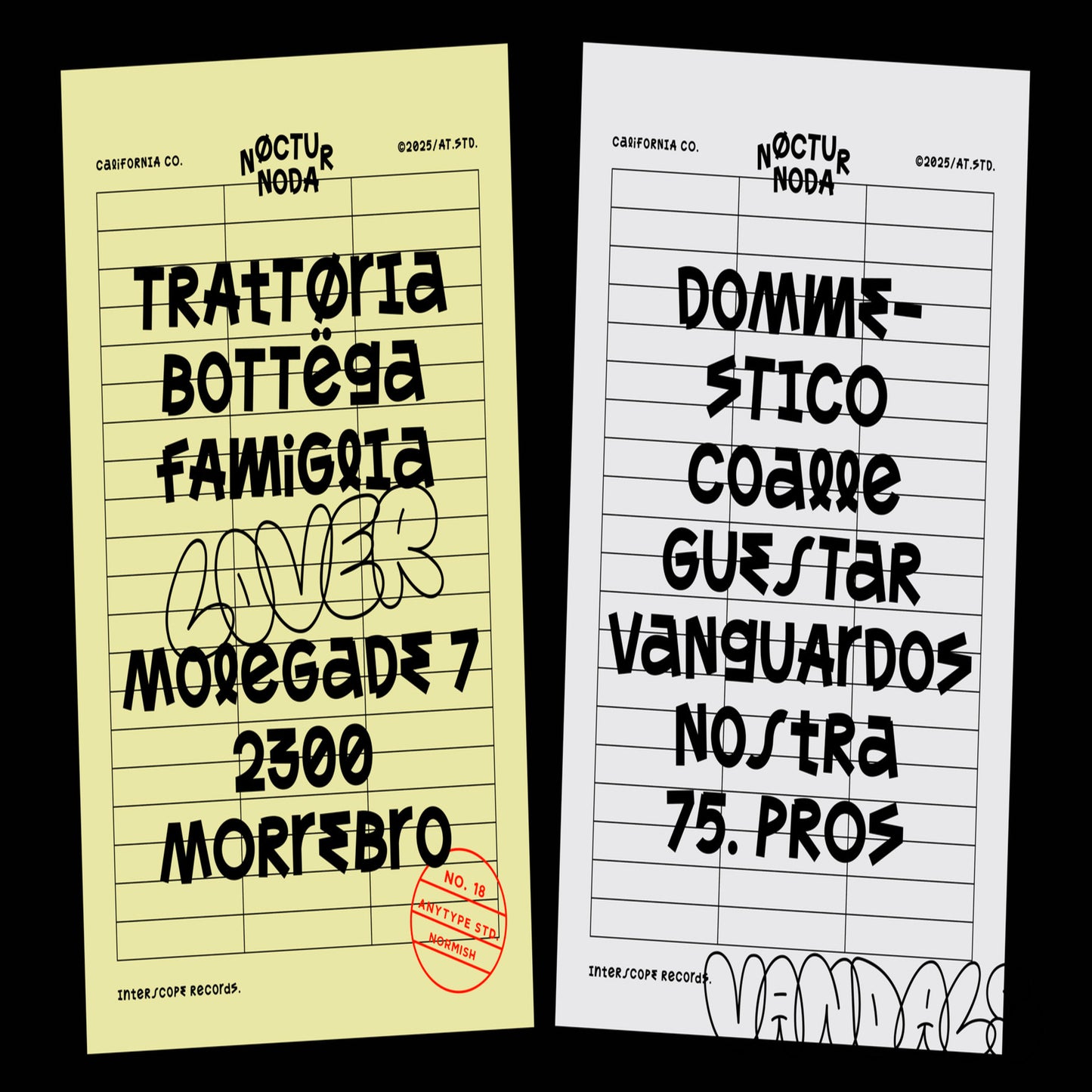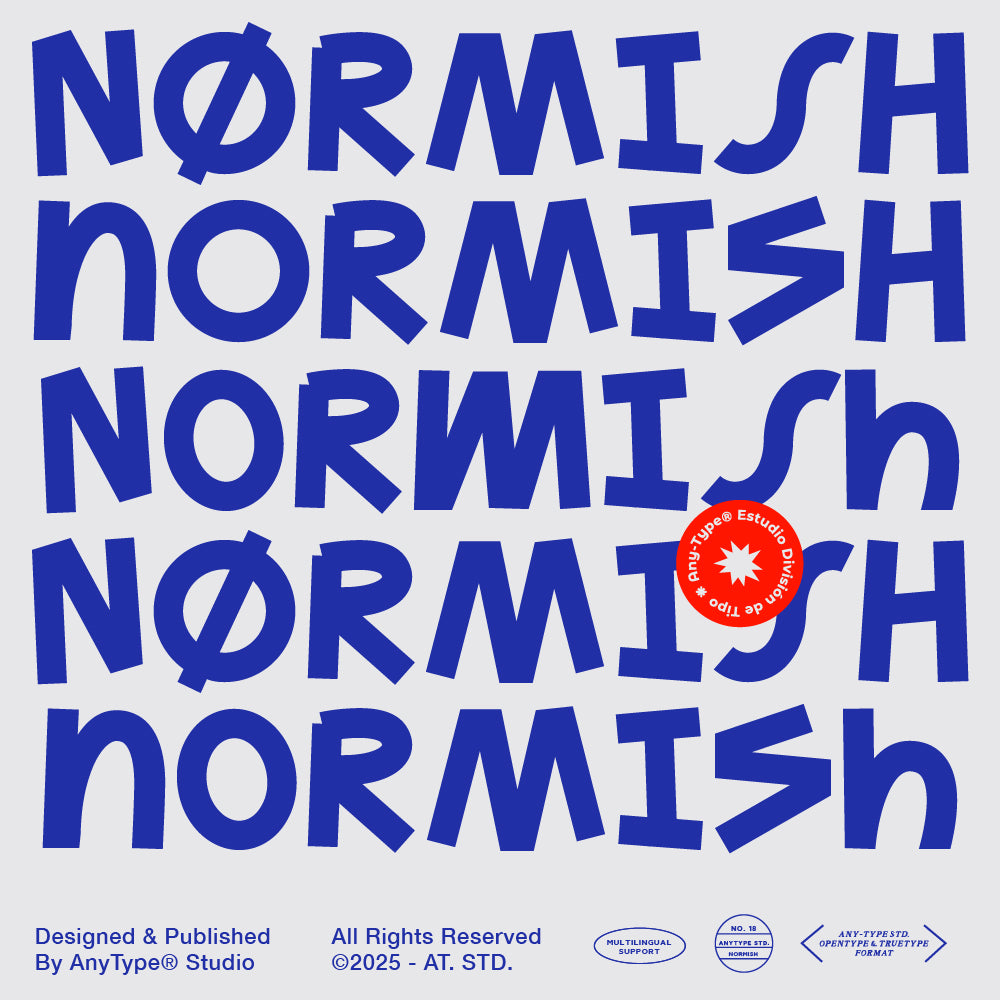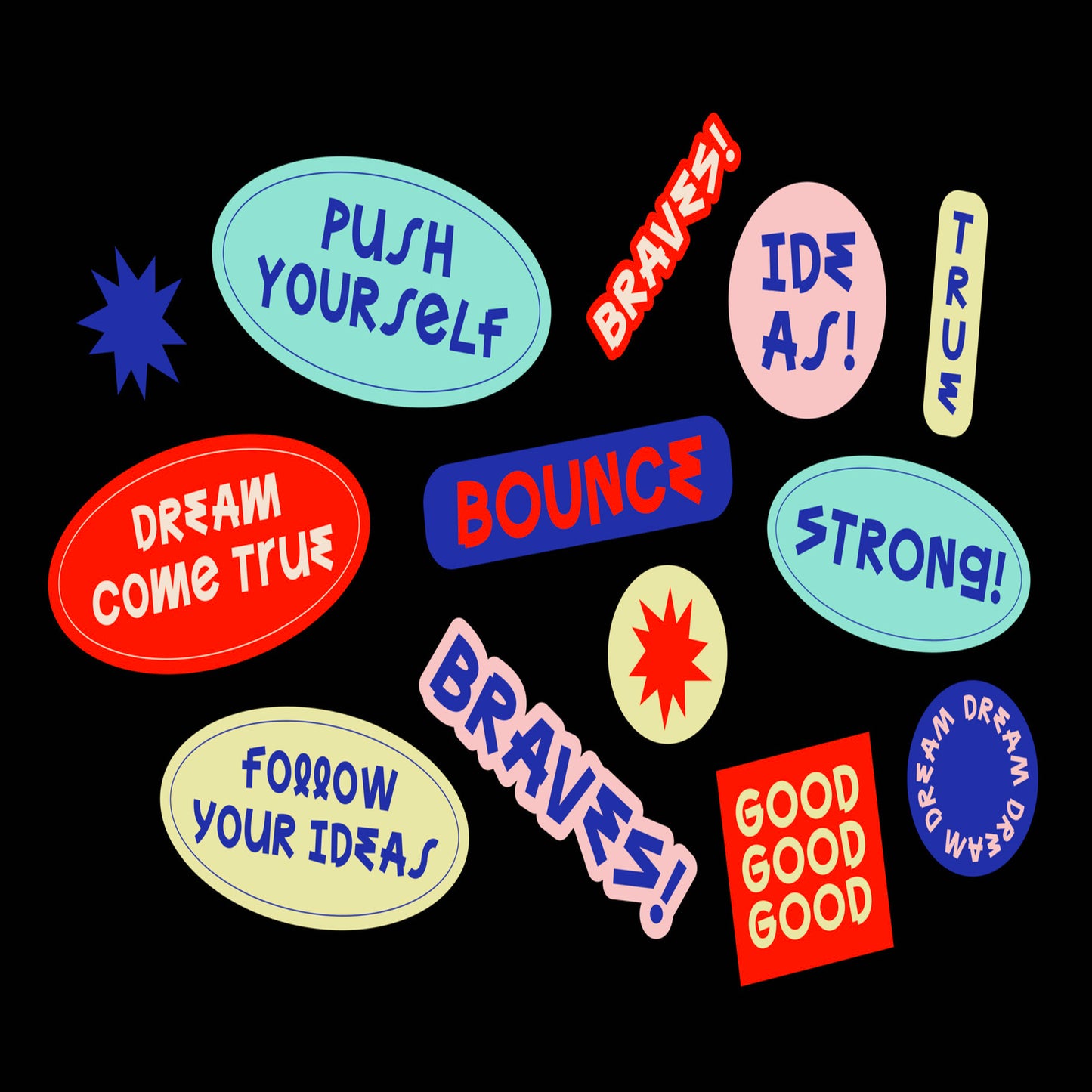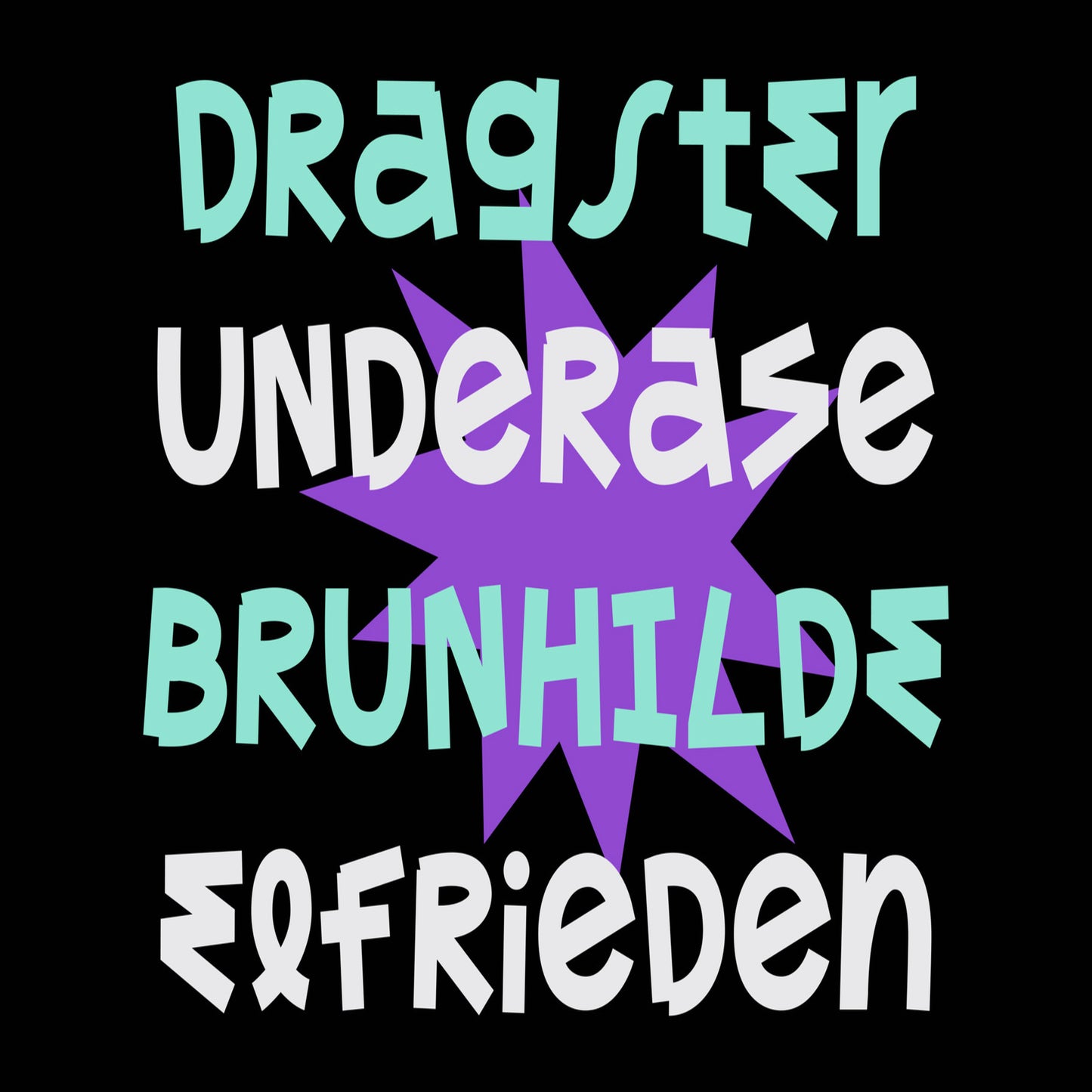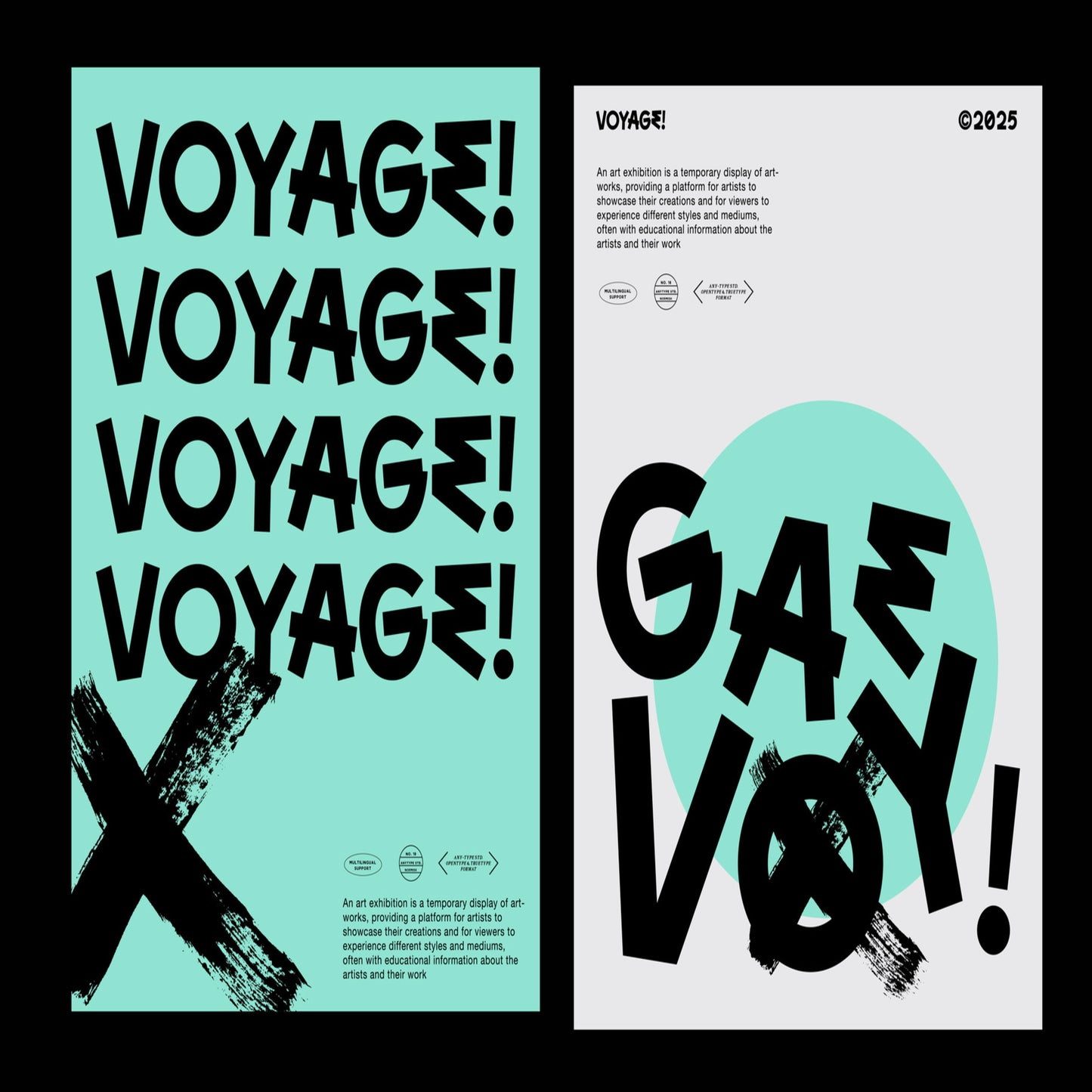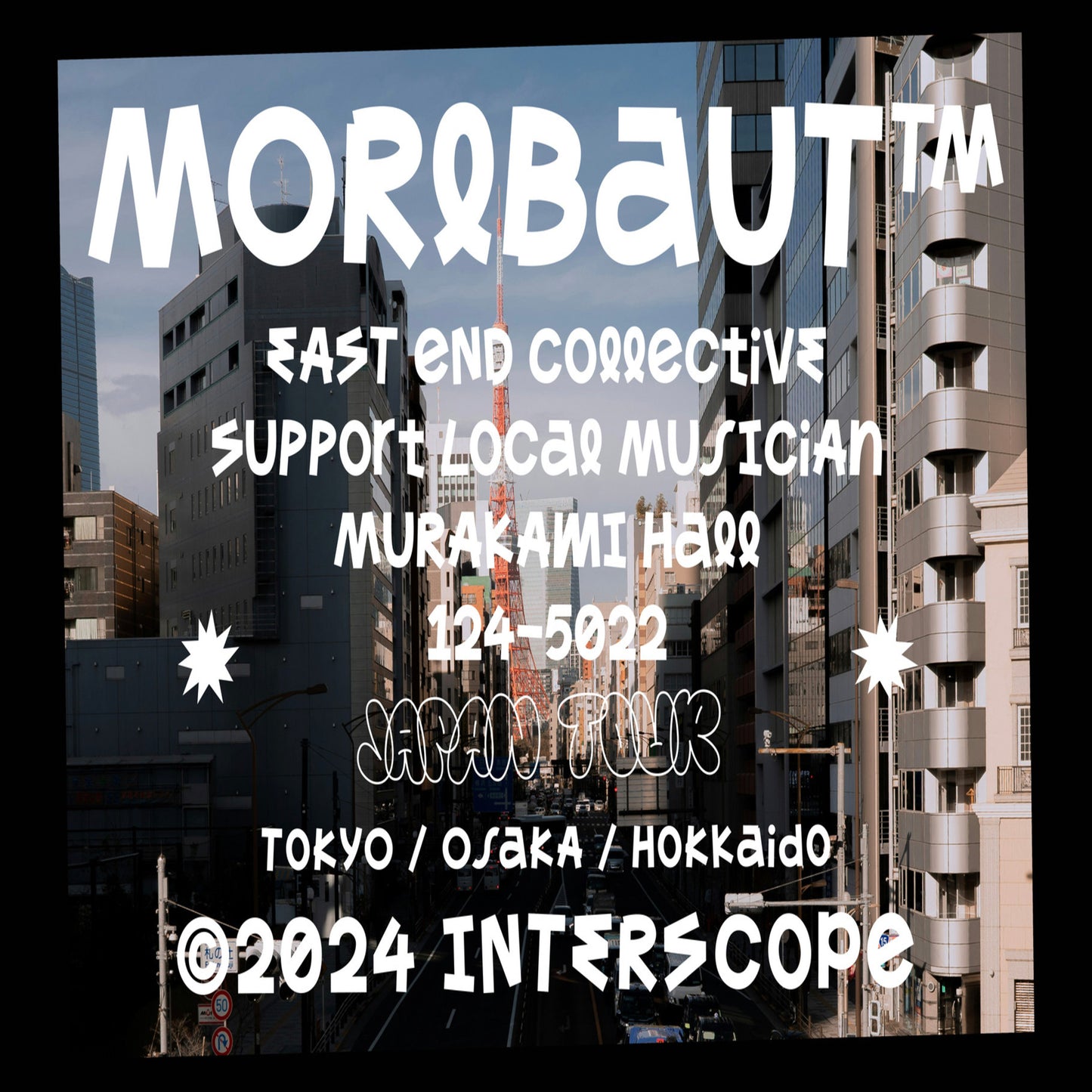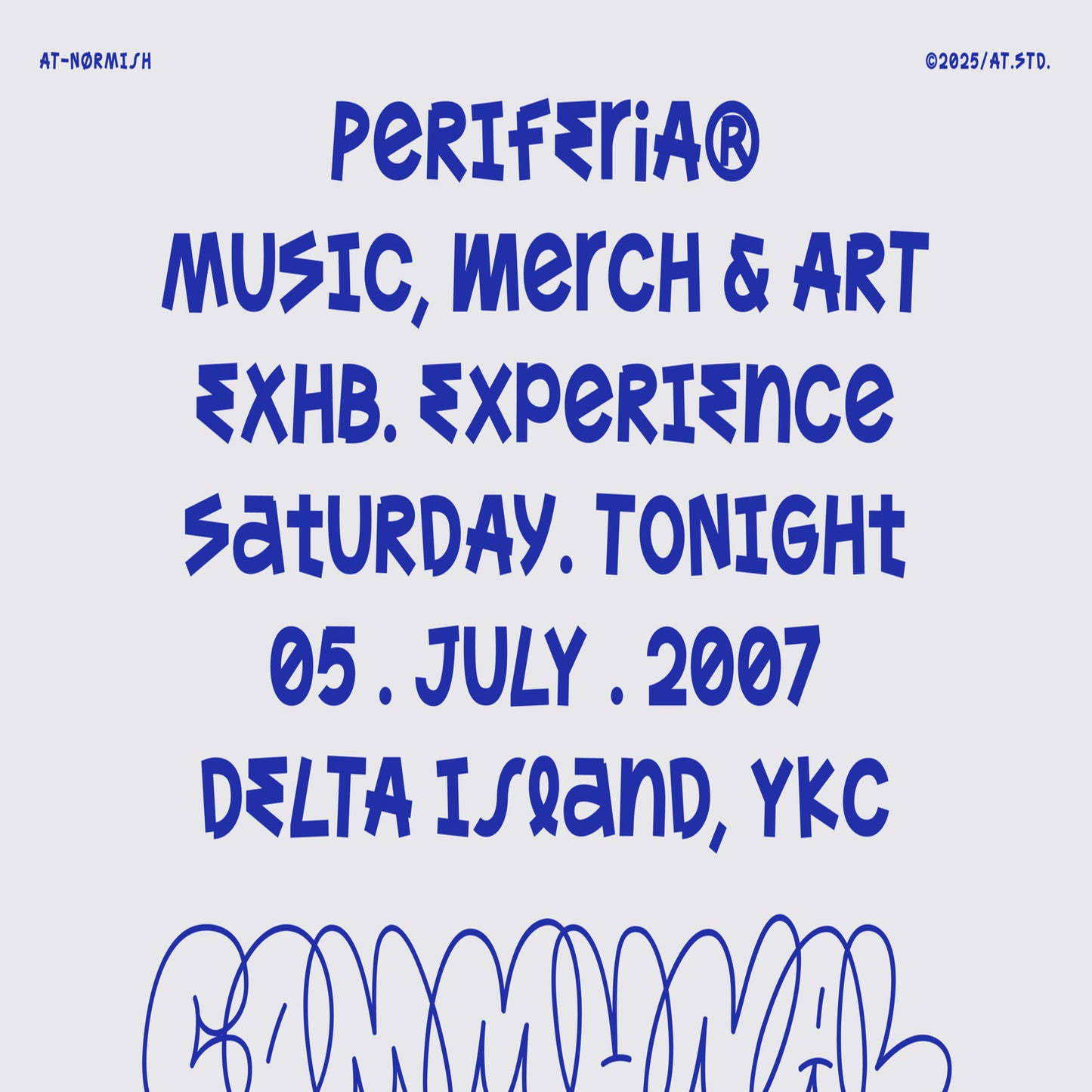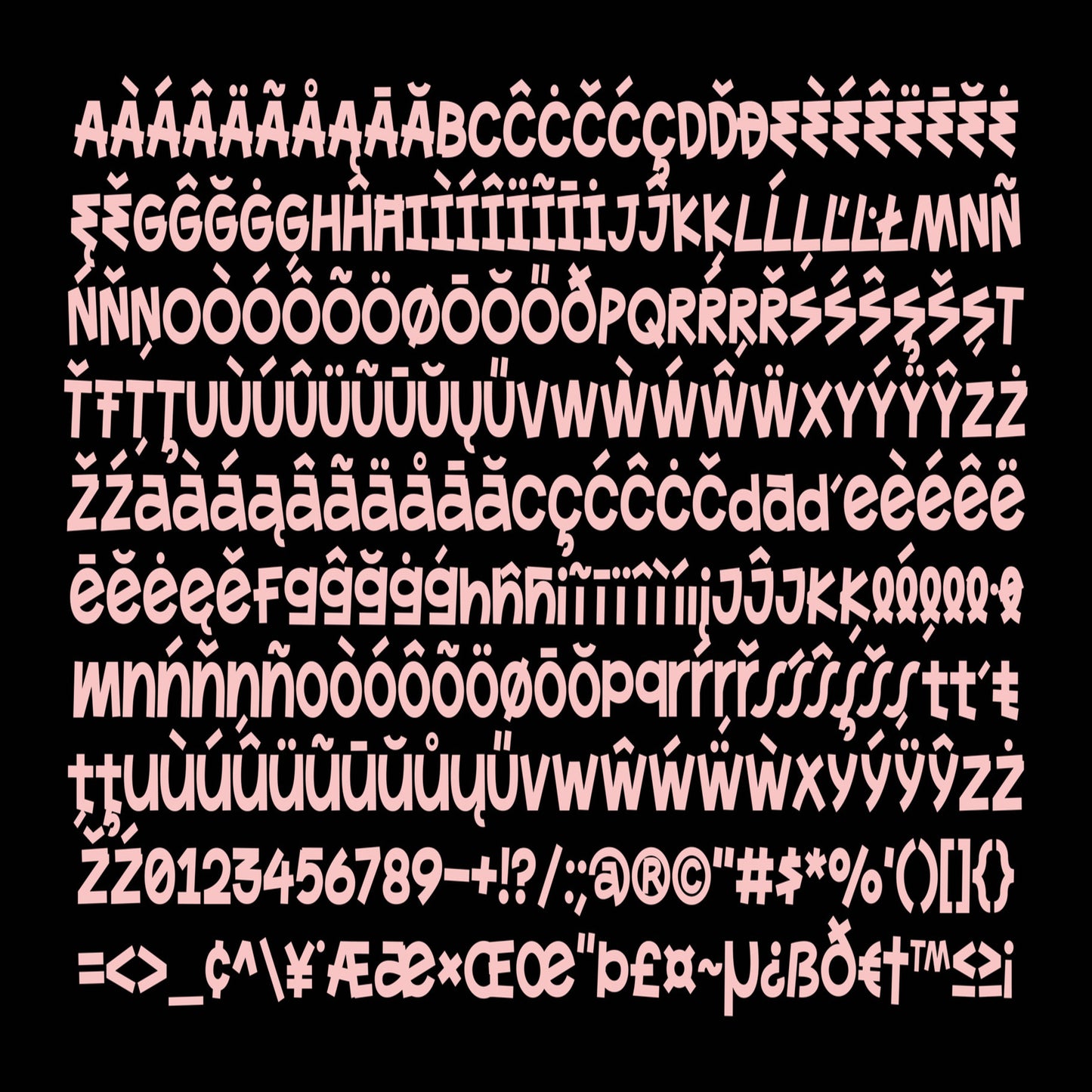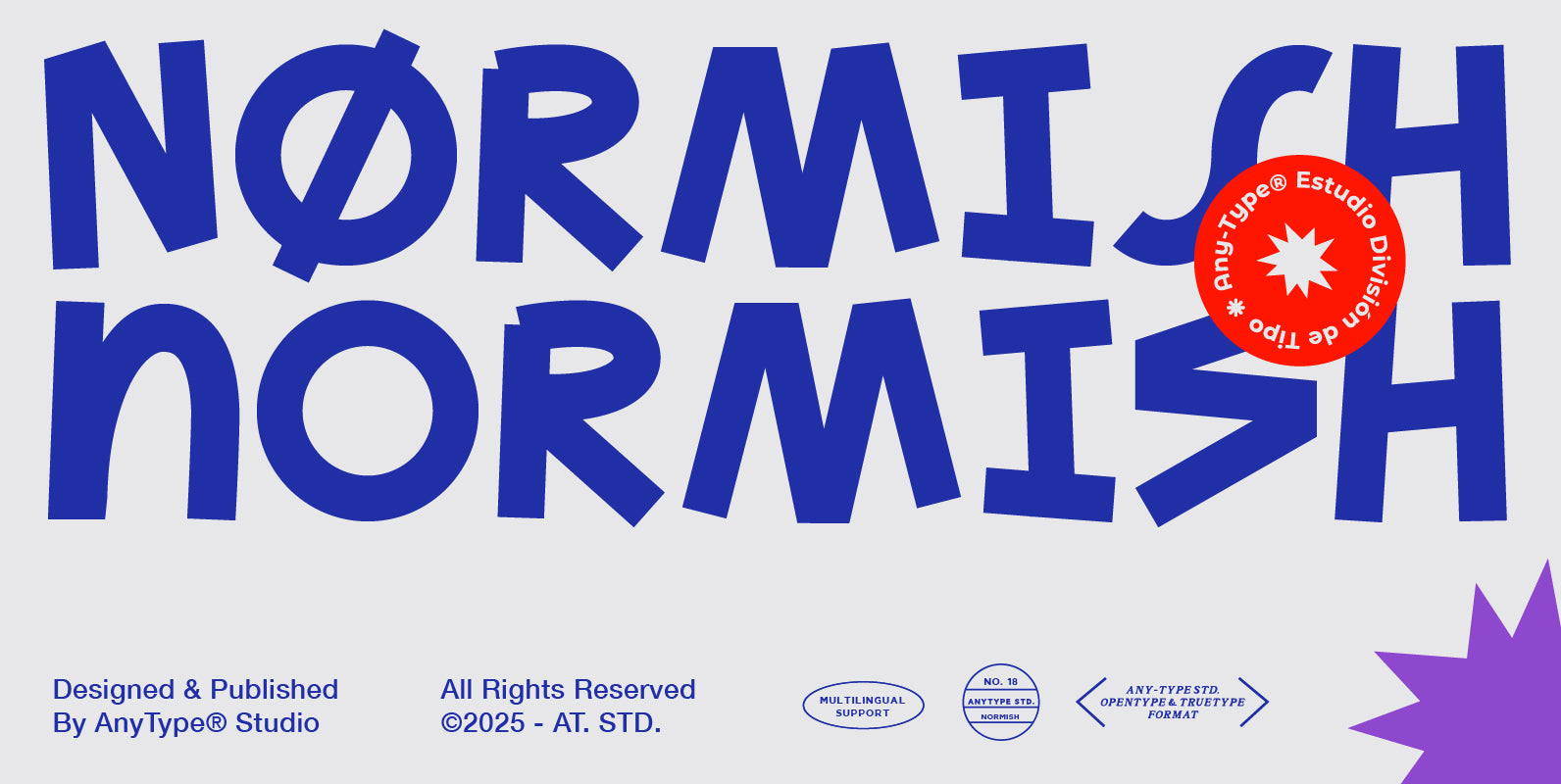
AT Normish
Any-Type
AT Normish is a bold retro-inspired display typeface with a playful and confident personality. Its chunky letterforms, strong rhythm, and vintage visual attitude make it a great choice for designs that need a fun, expressive, and eye-catching typographic style.